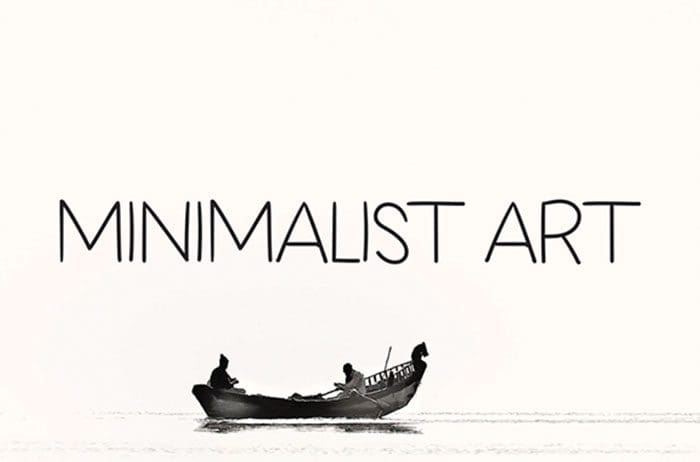
Minimalist Art Serif Font
Minimalist Art simplifies elegance into one truly outstanding serif font. This font is PUA encoded which means you can access all of the amazing glyphs and swashes with ease! Designed this font by Andika Studio. You can also search more freeĀ Serif Fonts.